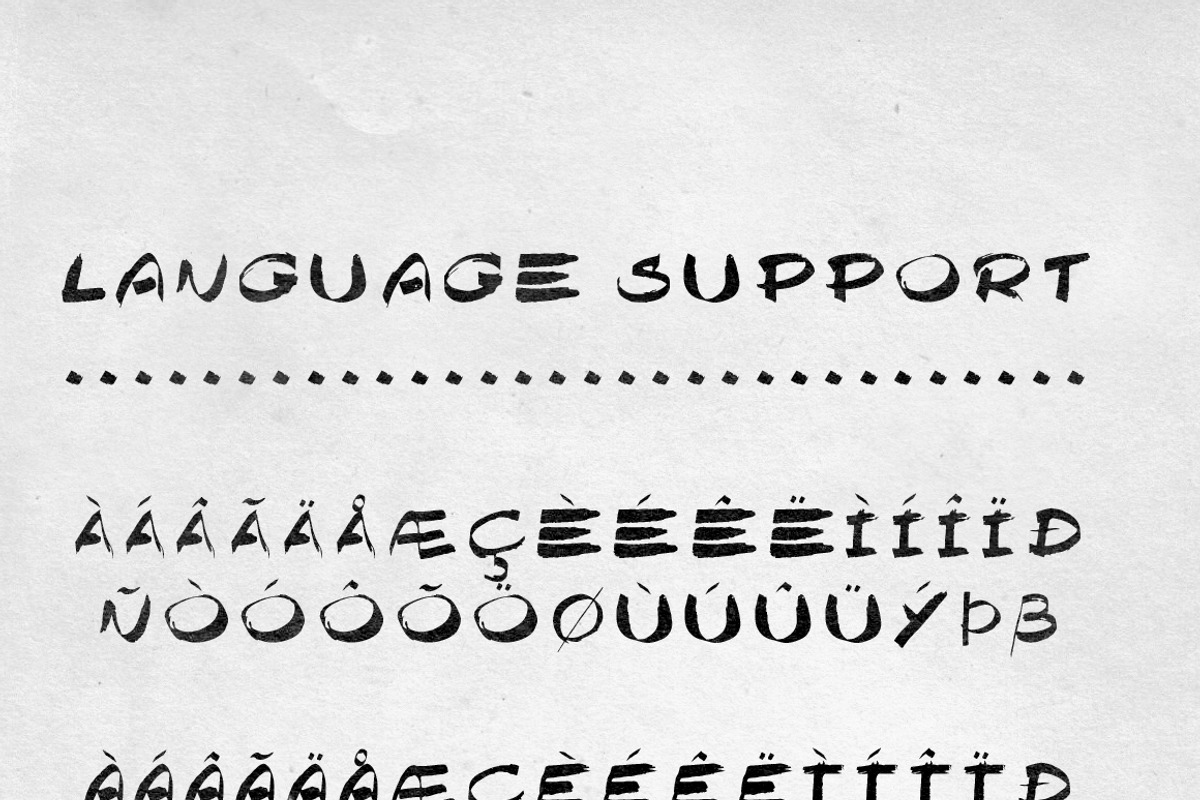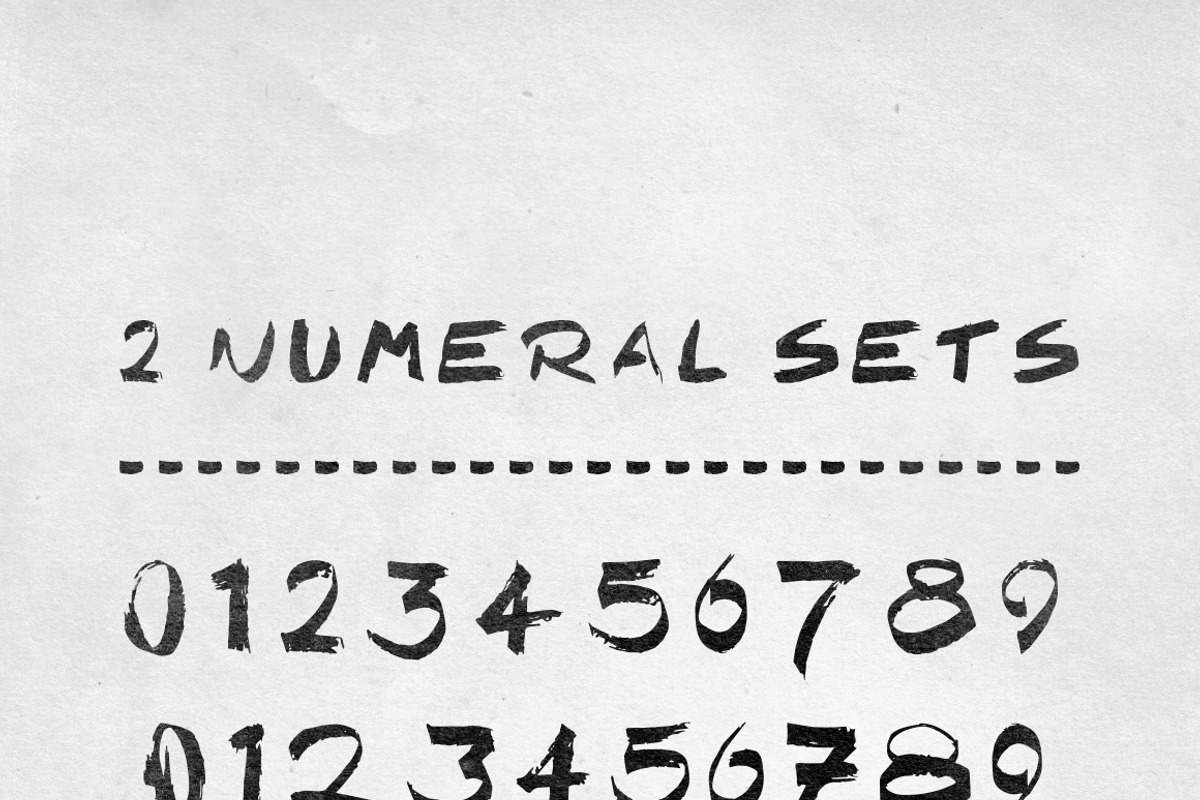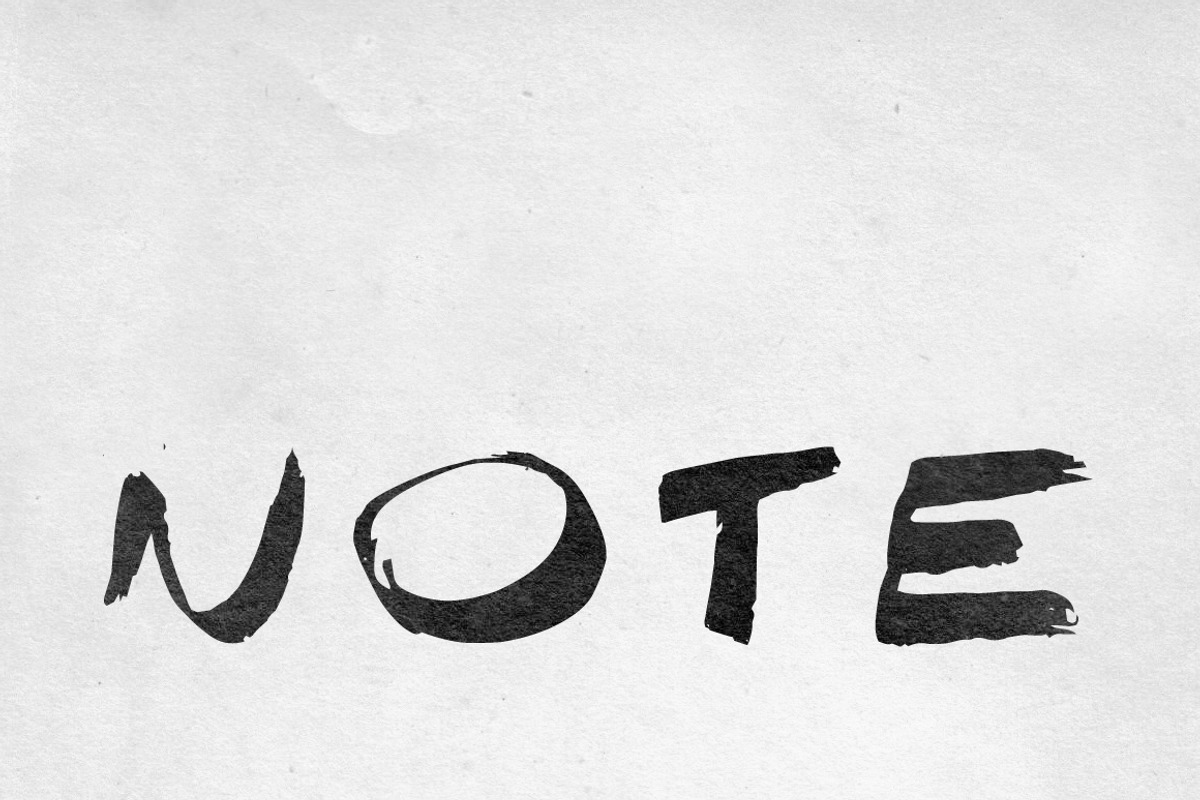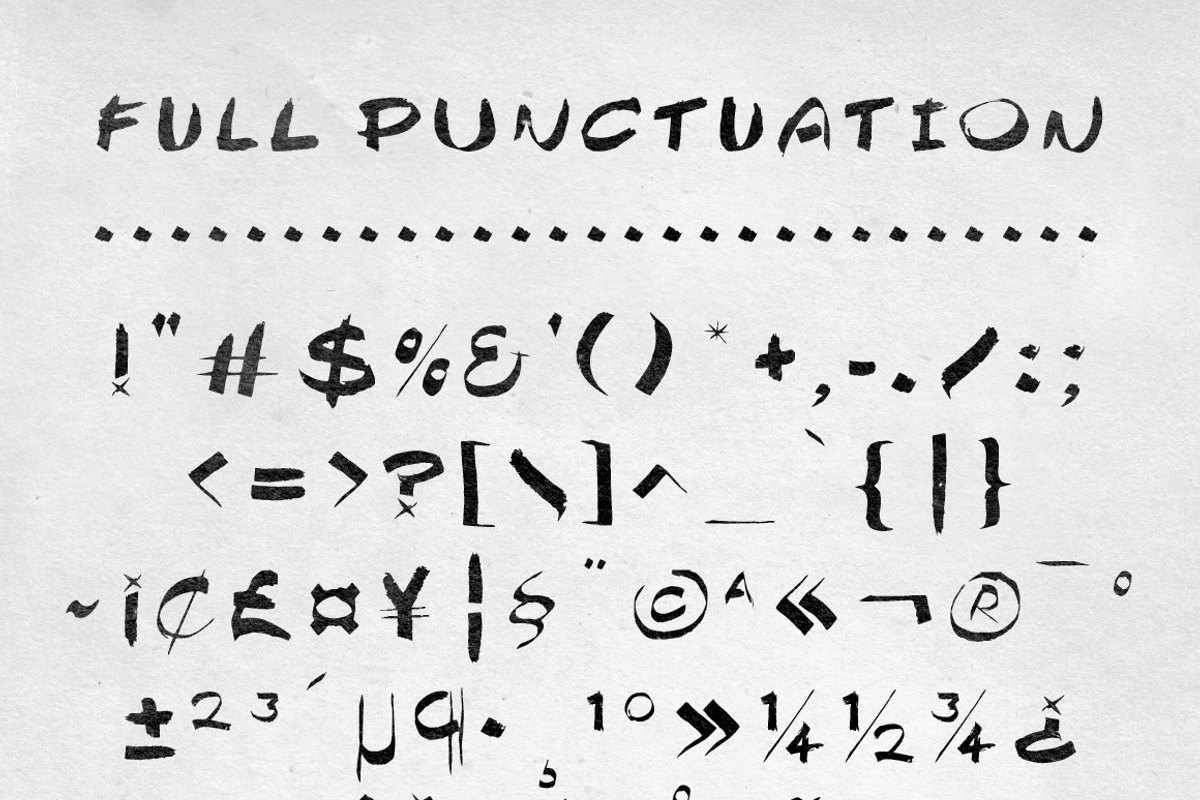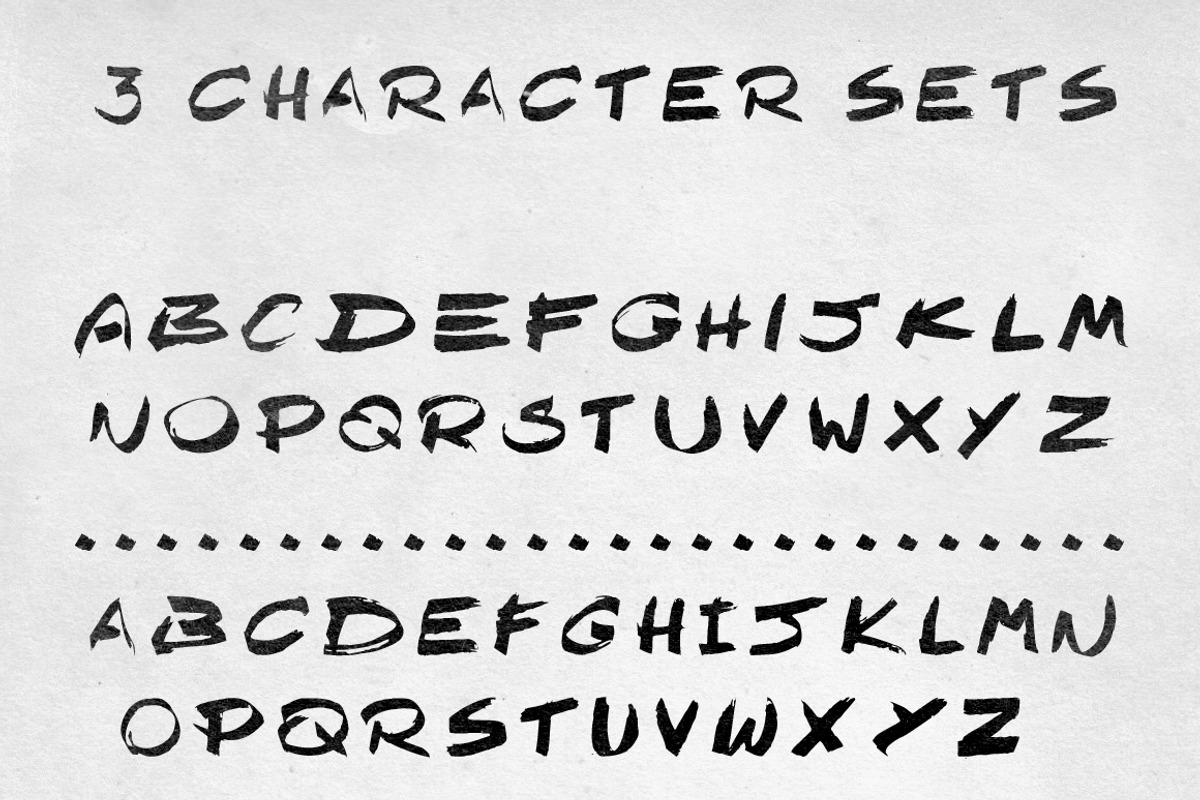
Note
Note by Little Fonts is a font selected for branding, posters, packaging, typography.
- The resulting characters are bold yet energetic, making an impact on the page without looking messy.
Why Note is worth a look
Note by Little Fonts fits naturally into Branding, posters, packaging, typography.